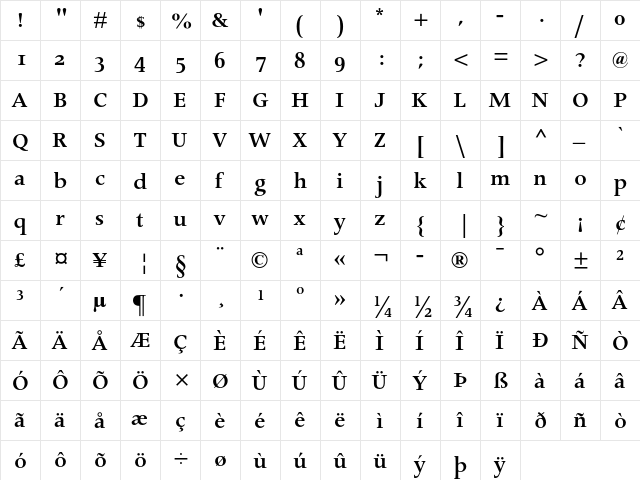
Apollo MT Semibold OsF
Design Context for Apollo MT Typeface
Apollo MT takes a measured approach to typography — its balanced proportions and neutral character make it a reliable workhorse for both digital and print work. The heavy weight commands attention and anchors typographic hierarchies.